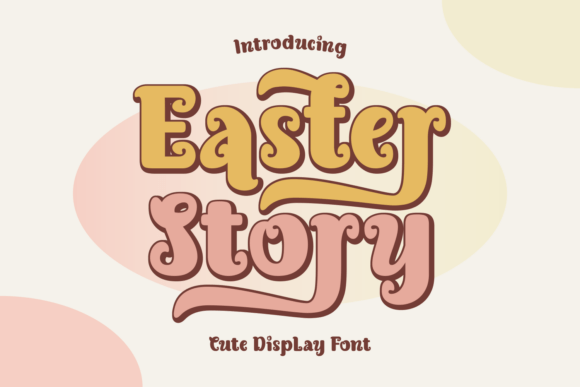
The Joy of Easter Story Font: A Creative’s Dream
As a designer, there’s nothing quite like the thrill of discovering a new font that sparks your imagination. For me, it happened on a sunny spring morning, surrounded by Easter decorations and the promise of new beginnings. I stumbled upon Easter Story Font, and its whimsical charm instantly captured my heart.
Easter Story Font is a delightful display font that embodies the spirit of the season. Its bubbly letterforms and playful swashes make it perfect for creating holiday cards, kids’ projects, and brand identities that exude warmth and joy. Whether you’re looking to add a touch of nostalgia or modern cuteness to your designs, Easter Story Font is a valuable asset in your creative toolkit.
• Font Family: Easter Story Font is a unique, custom-designed font family consisting of multiple styles.
• Unique Characteristics: Easter Story Font features intricate, hand-drawn designs and ornaments, making it ideal for creating visually striking Easter-themed designs, invitations, and other materials.
• Styles and Weights: The font family includes multiple styles and weights, including bold, italic, and condensed versions, providing users with flexibility and creative freedom.
Easter Story Font Review
Overall, I think the Easter Story Font is a unique and creative addition to any design project. ✨ The font’s ornate details and intricate designs make it perfect for Easter-themed graphics, cards, and other promotional materials. ✨ The font’s ability to add a touch of whimsy and playfulness to your designs is undeniable. ✨
However, there are some limitations to consider. ⚠️ The font may be too ornate for some designs, making it difficult to read or overwhelming the viewer. ⚠️ Additionally, the font’s complexity may make it challenging to pair with other fonts, potentially limiting its versatility. ⚠️
• Unique and creative design
• Perfect for Easter-themed projects
• Can add a touch of whimsy and playfulness to designs
• May be too ornate for some designs
• Can be challenging to pair with other fonts
• May overwhelm the viewer
Overall, I think the Easter Story Font is a great choice for designers who want to add a unique touch to their Easter-themed projects. With careful consideration of its limitations, it can be a valuable addition to your design toolkit.